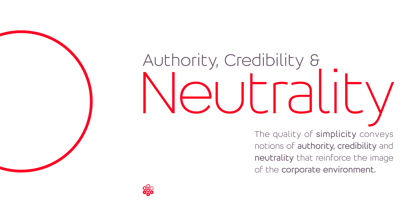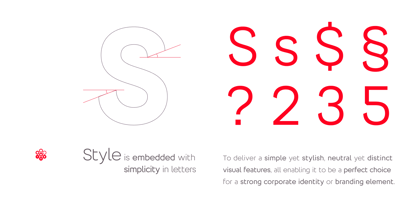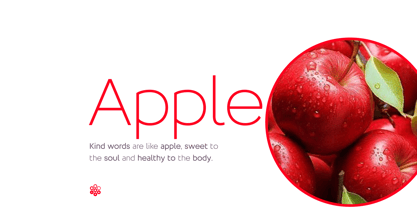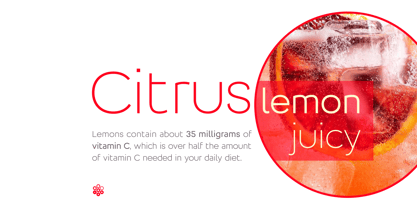
Liora
by Soneri Type
The Liora Font Family was designed by Aakash Soneri and published by Soneri Type. Liora contains 7 styles and family package options.
Liora is a typeface that epitomizes simplicity, embodying the essence of a corporate font. Its design instills authority, credibility, and neutrality, vital traits in a corporate setting. Featuring an optical uniform stroke, Liora achieves a formal aesthetic that communicates professionalism, making it an excellent choice for branding and corporate identity.
The letters are crafted with a harmonious blend of simplicity and style, presenting a neutral yet distinctive appearance. This unique combination makes Liora ideal for reinforcing strong corporate branding and identity. Designed by Akash V Soneri, the Liora type family stands as a testament to effective and elegant corporate communication.